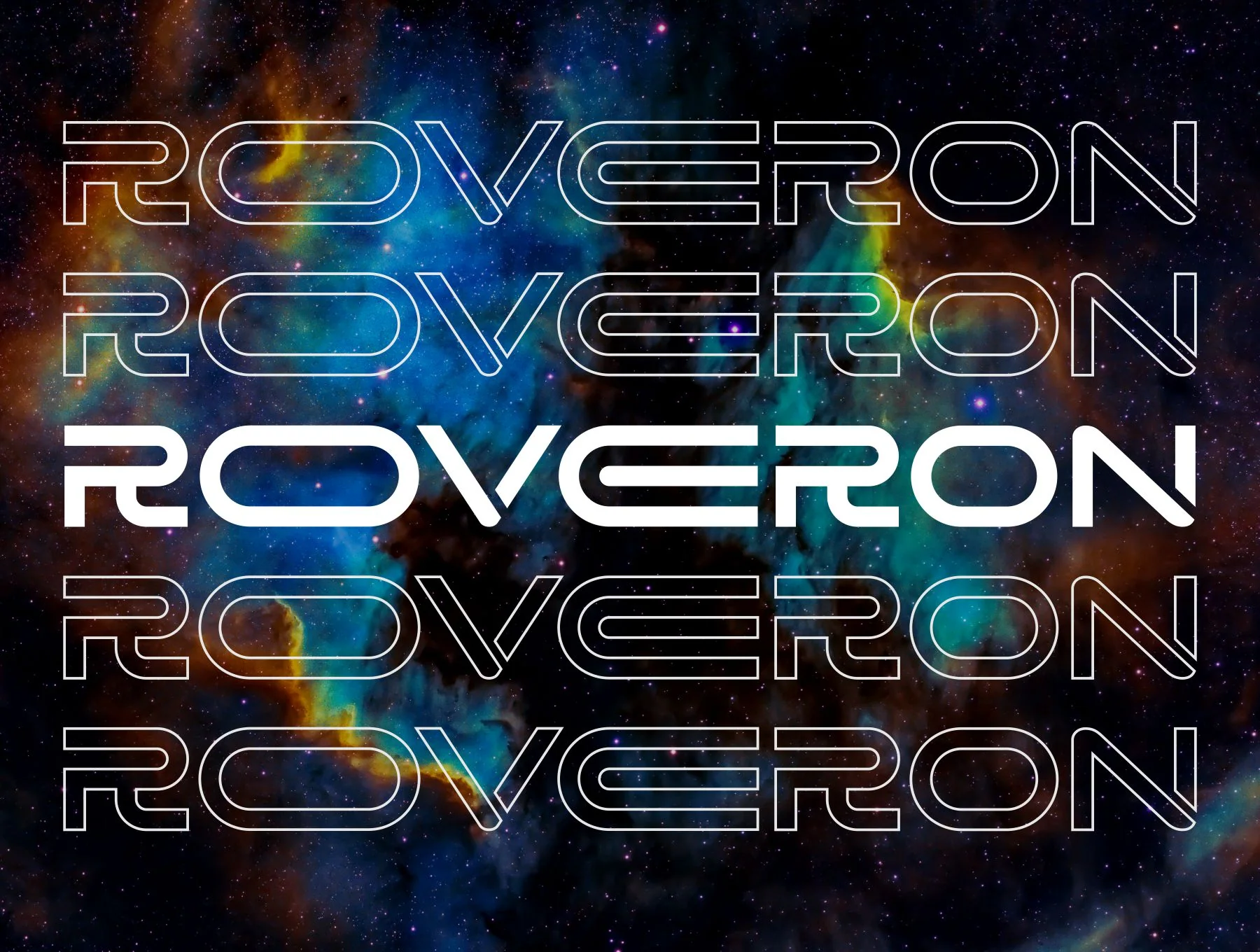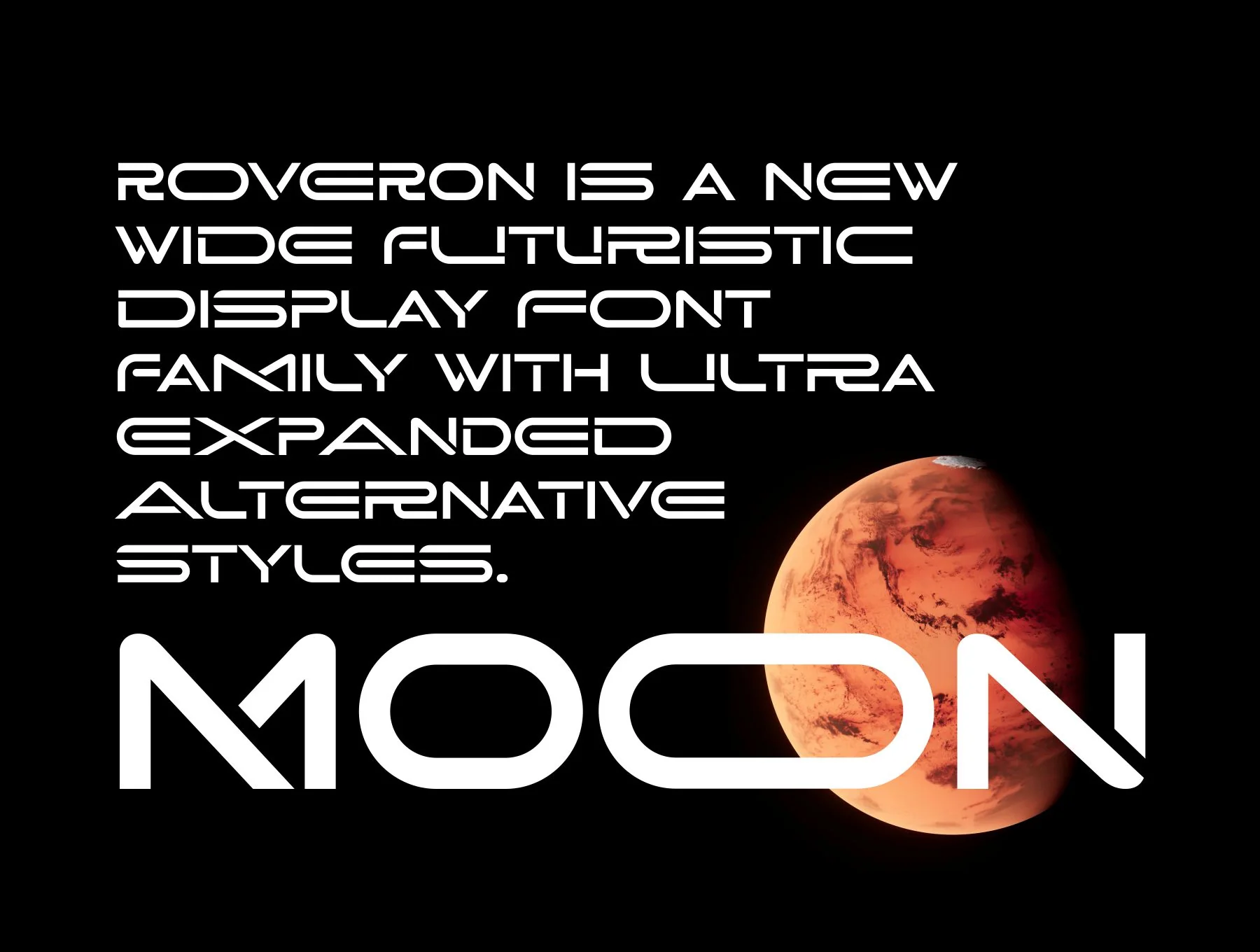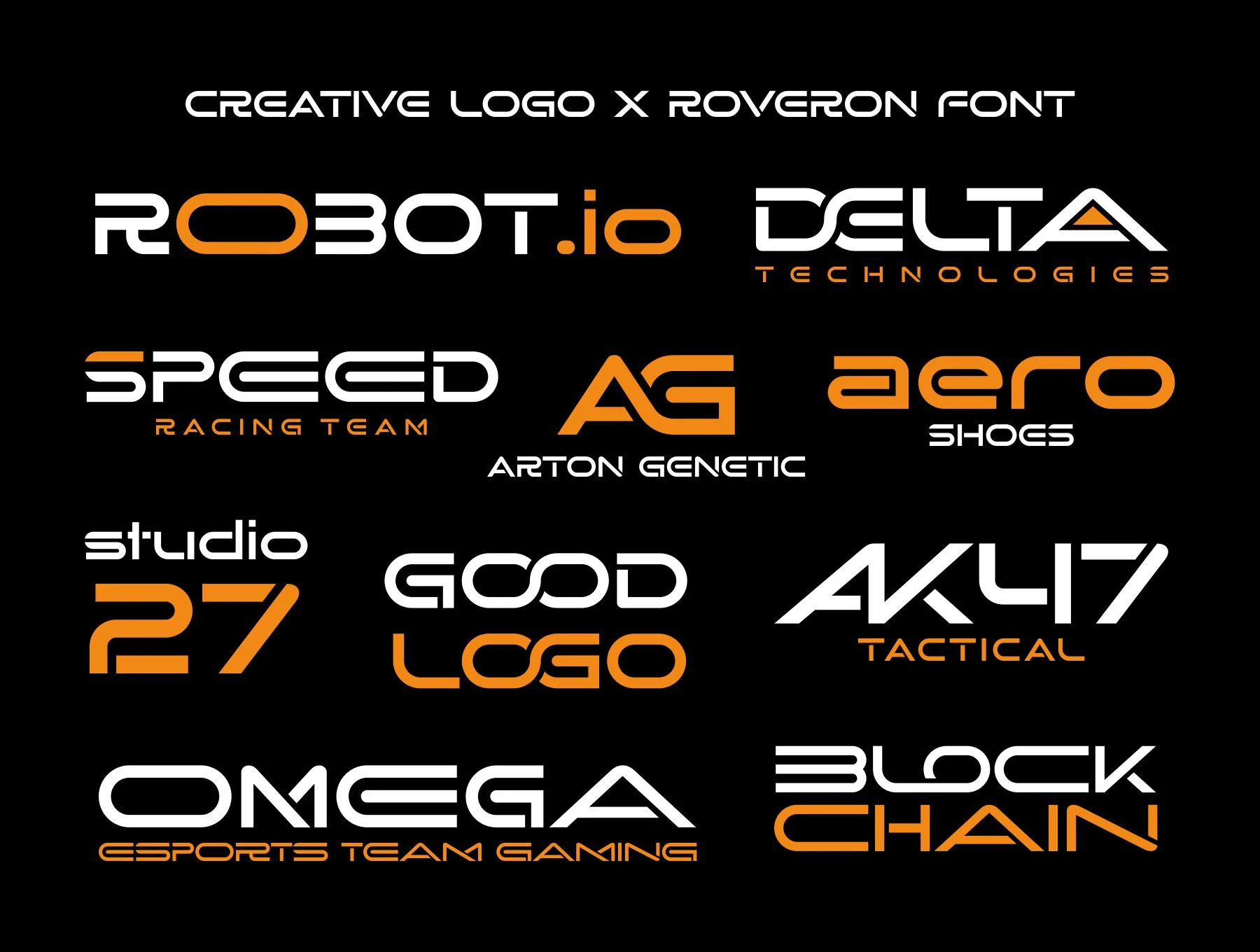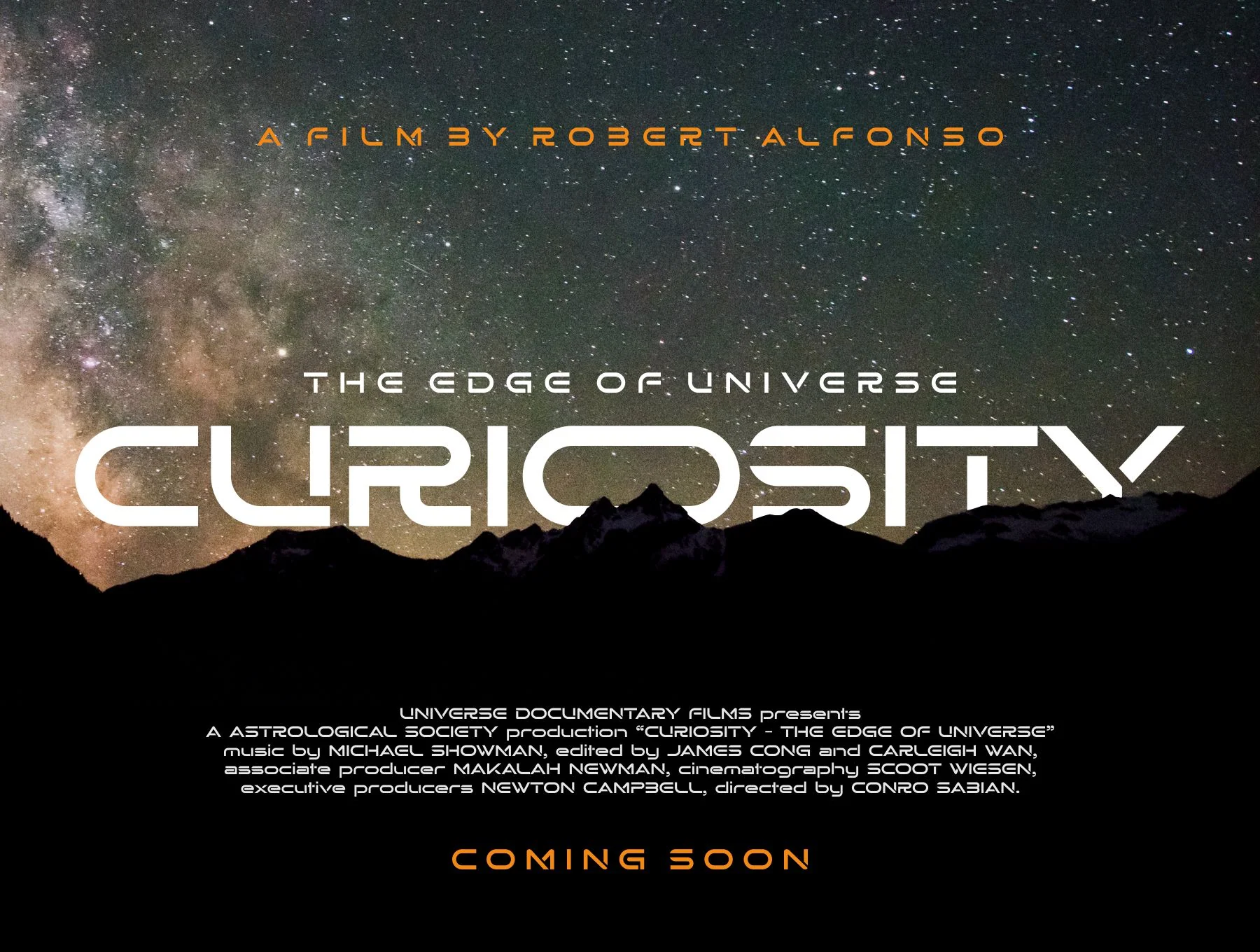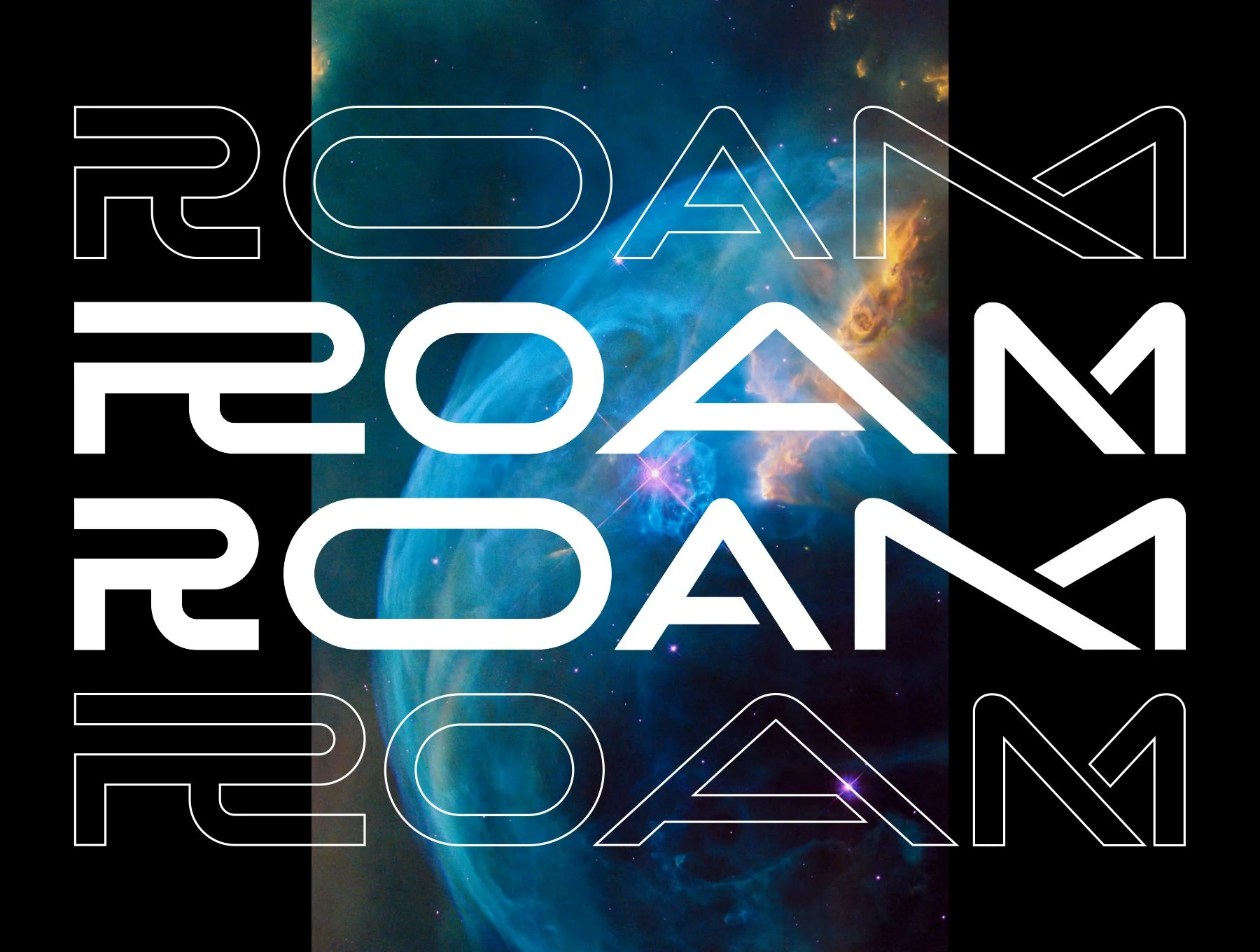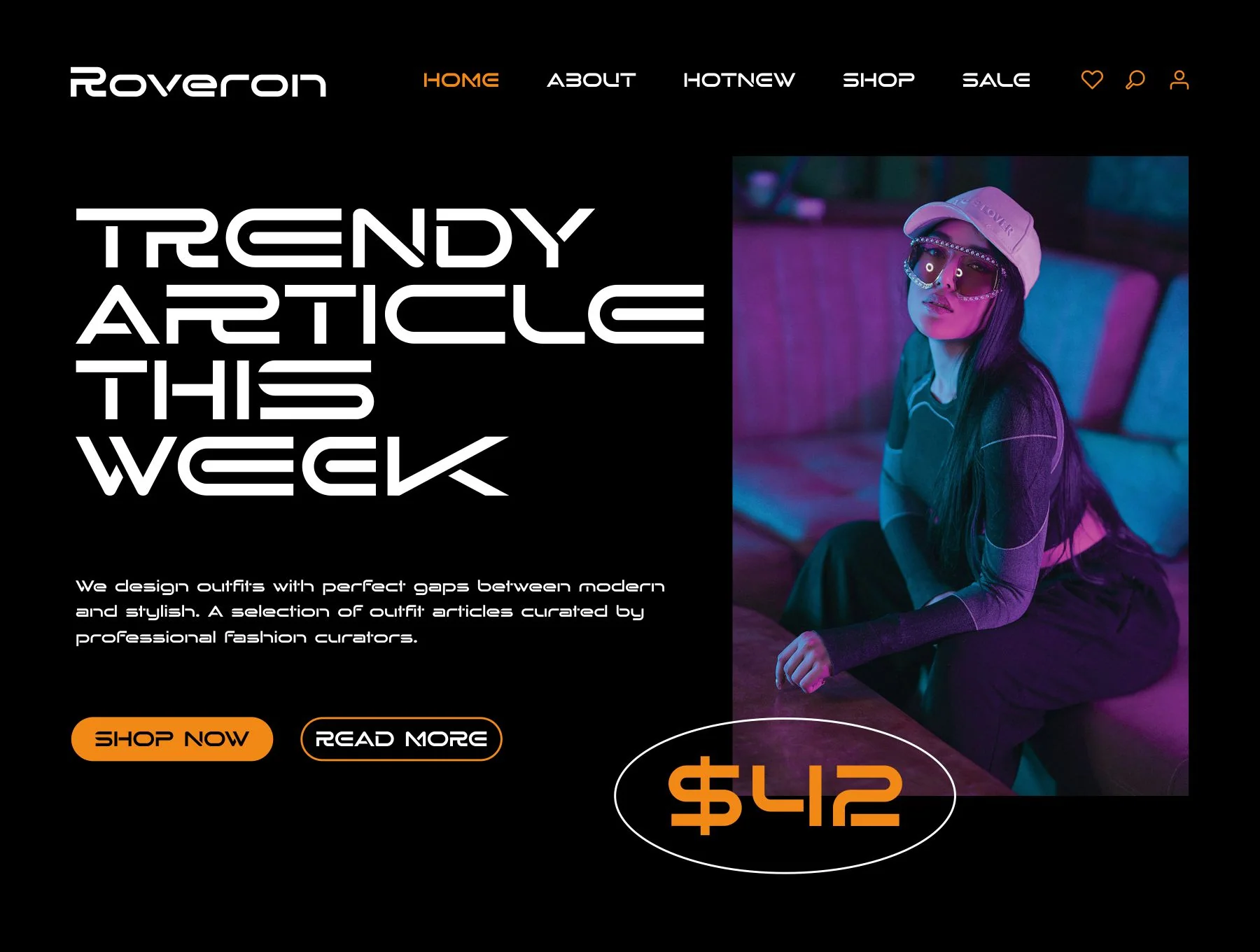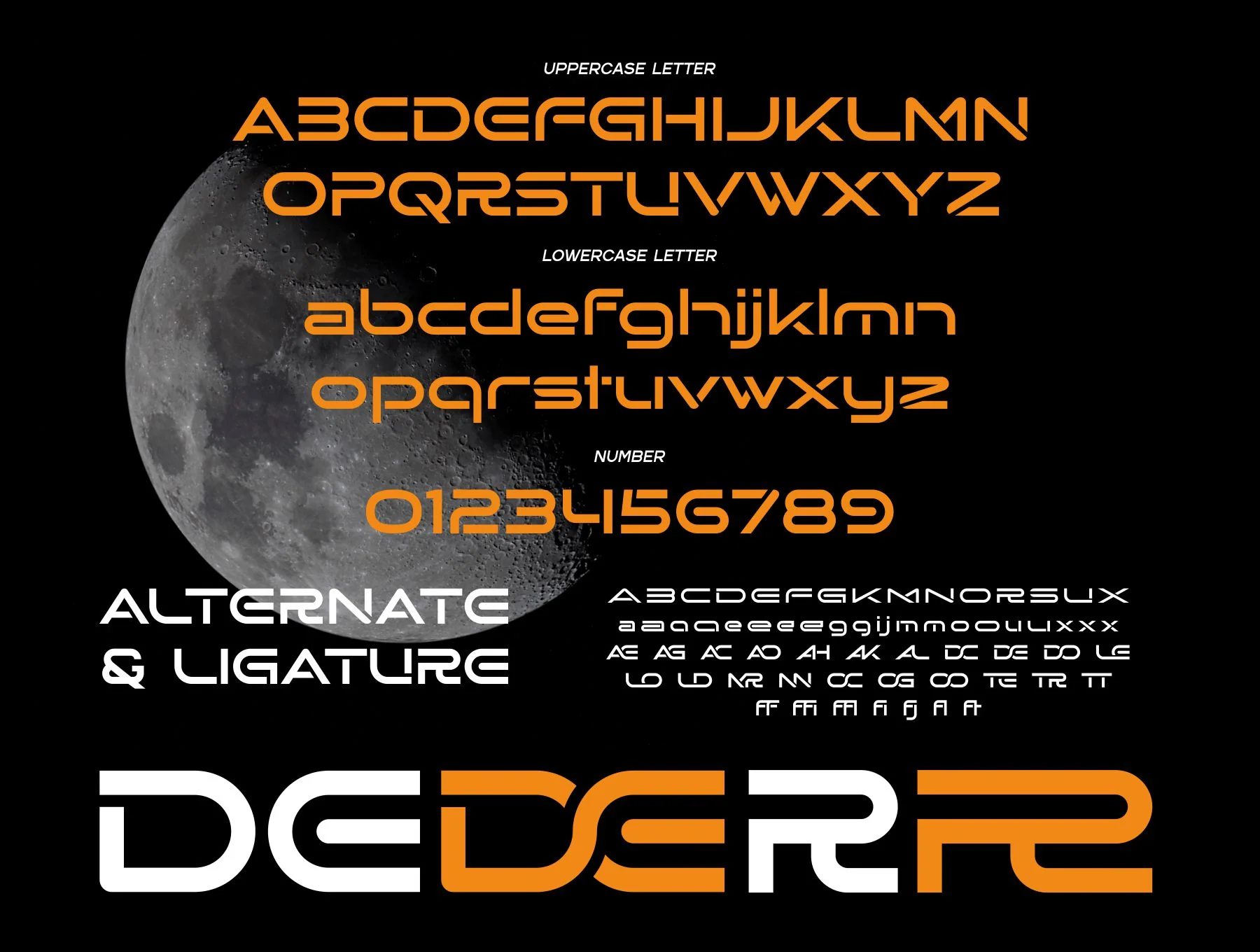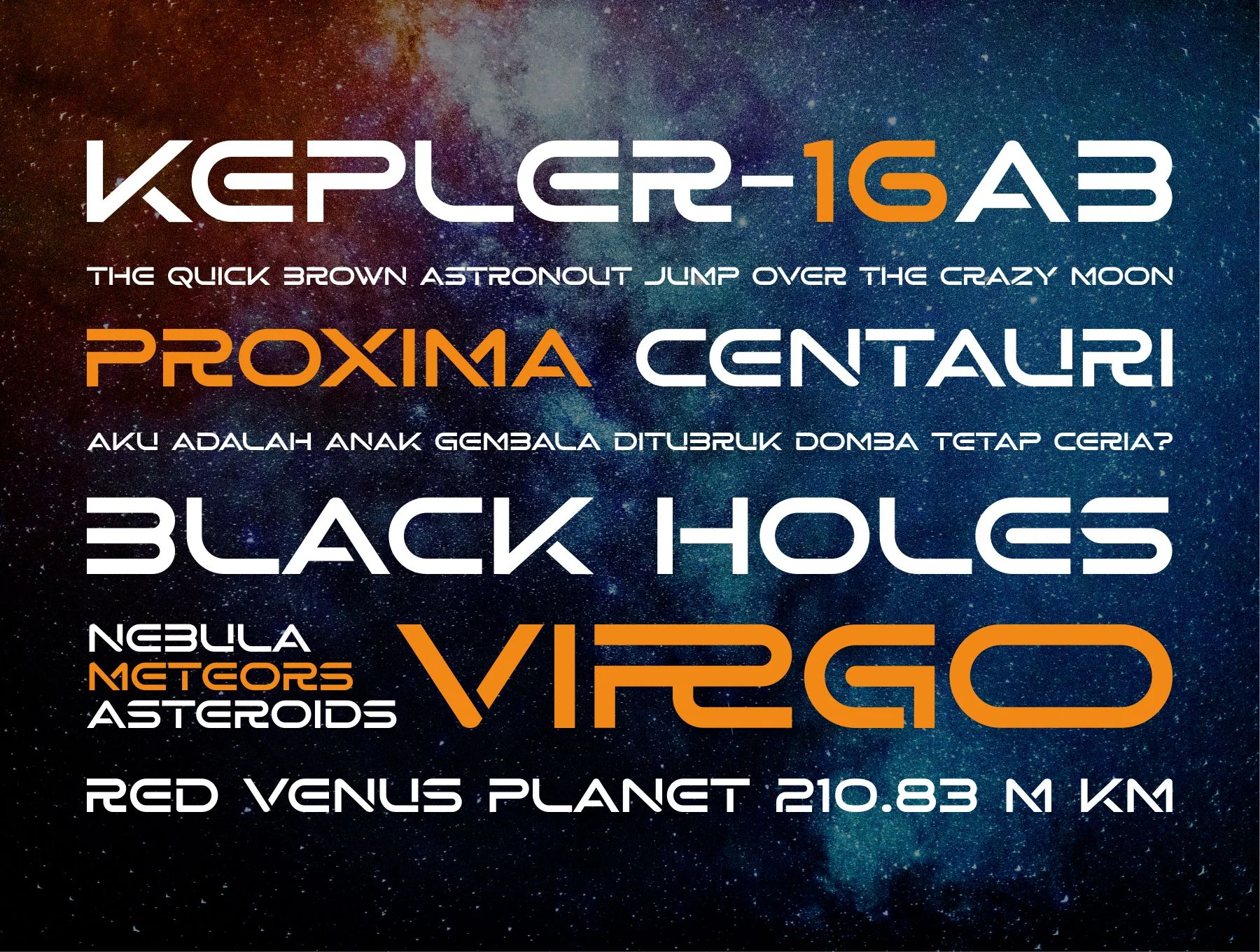
Roveron - Contemporary Wide Display Font
Contemporary Sci-Fi Display Typeface
Regular Character Set
Numbers and Marks
Alternate Styles plus Letter Joins
Broad Language Compatibility
Roveron is a forward-looking extended display typeface with distinctive geometric forms. Inspired by cosmic exploration, it brings a bold modern character to refined designs. It includes wide alternate styles and optional ligatures, making it ideal for logos, branding, titles, posters, signage, and more.